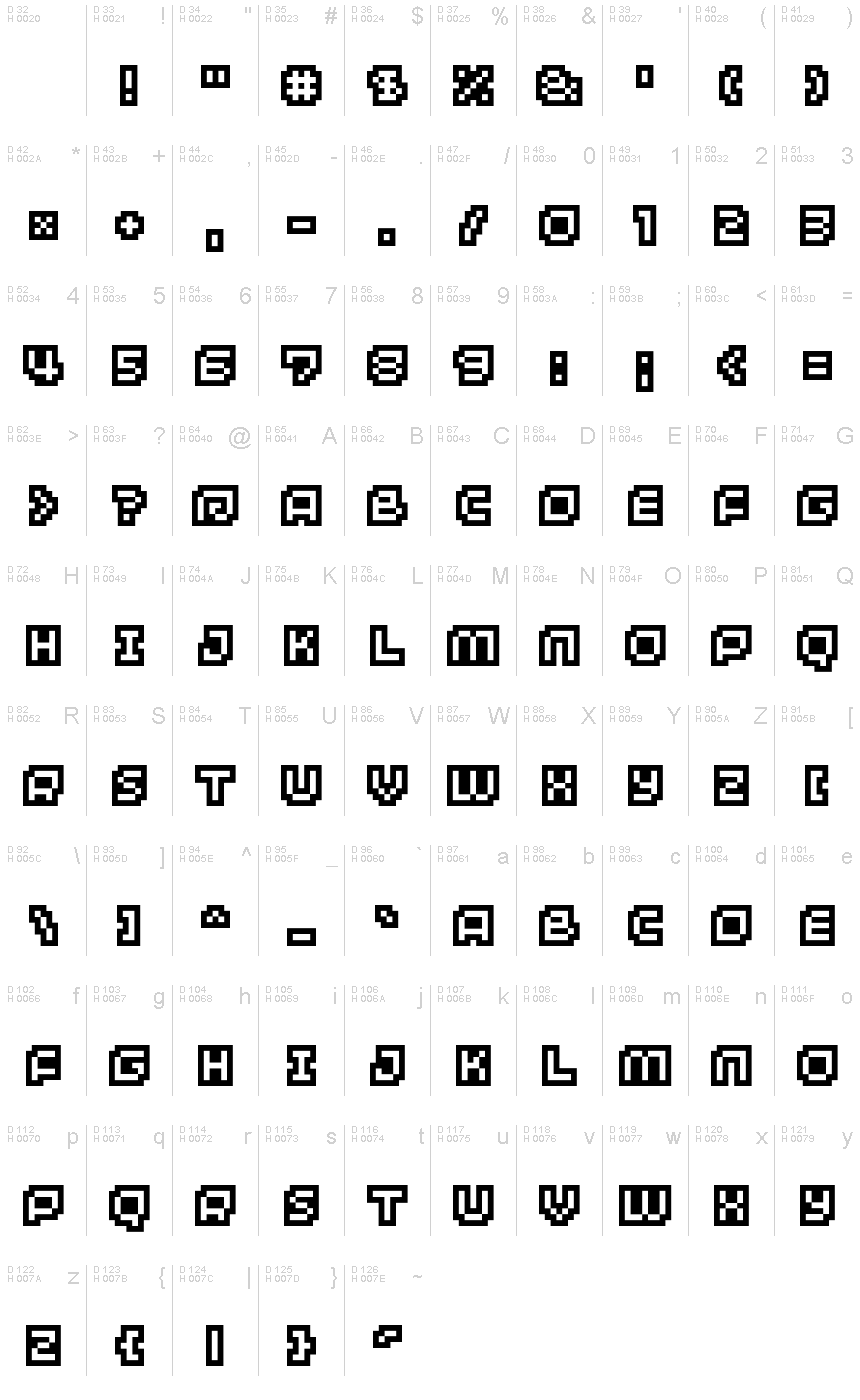
Minimum +1
Minimum +1, a bold and captivating bitmap font crafted by Clops, captivates the eye with its striking pixelated outline. This expansive font exudes a retro-futuristic aesthetic, blending the nostalgia of early digital aesthetics with a modern, geometric flair. The bold, blocky forms and crisp lines create a strong, impactful visual presence, making Minimum +1 a standout choice for eye-catching designs.
This versatile font lends itself well to a variety of design applications, from bold headers and titles to eye-catching logos and branding elements. Its distinct, pixelated style makes it an excellent choice for retro-inspired designs, gaming interfaces, and digital art projects, where its robust, geometric forms can shine. Minimum +1 is a captivating font that effortlessly blends the past and the future, offering designers a unique and memorable typographic solution.